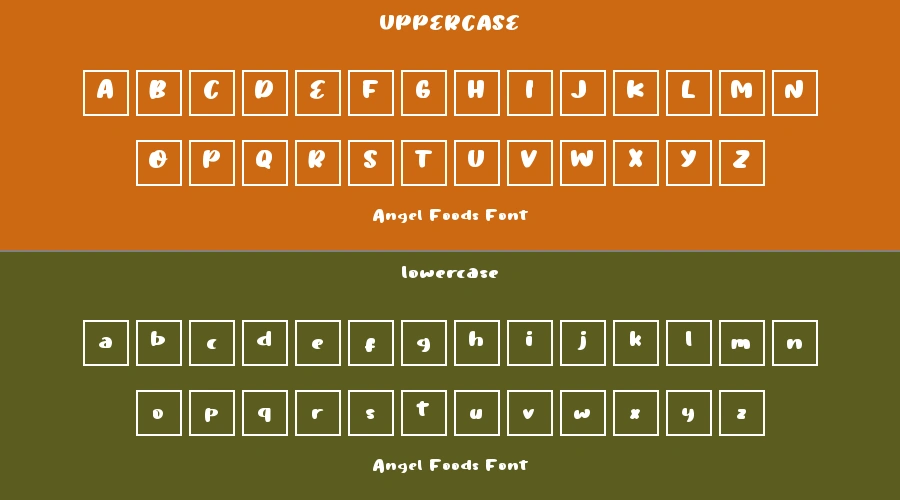
About Angel Foods Font
Angel Foods Font embodies typographic excellence through its masterful combination of clean lines and creative expression. Created for poster titles, this typeface delivers exceptional expressiveness and professional authority across all applications. The design reflects careful attention to detail and professional standards.
Advanced capabilities include distinctive measured spacing and versatile ordinals, giving designers creative control. When used in running text, Angel Foods Font exhibits remarkable scanning accuracy. The harmonious balance between stem weight and user perception sets this typeface apart.